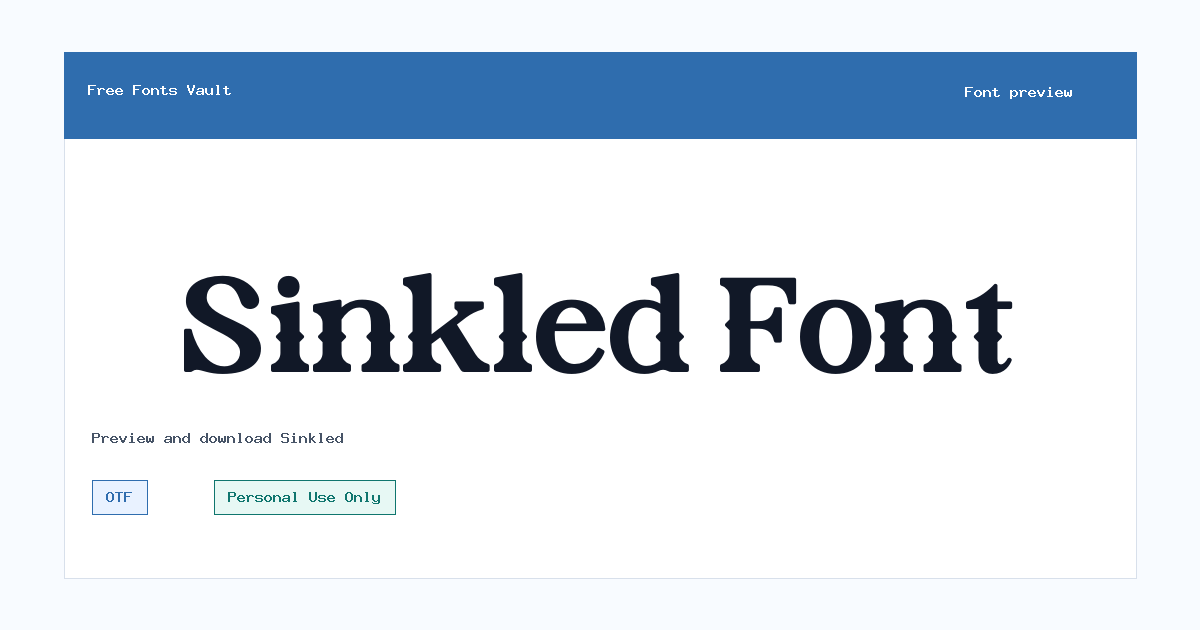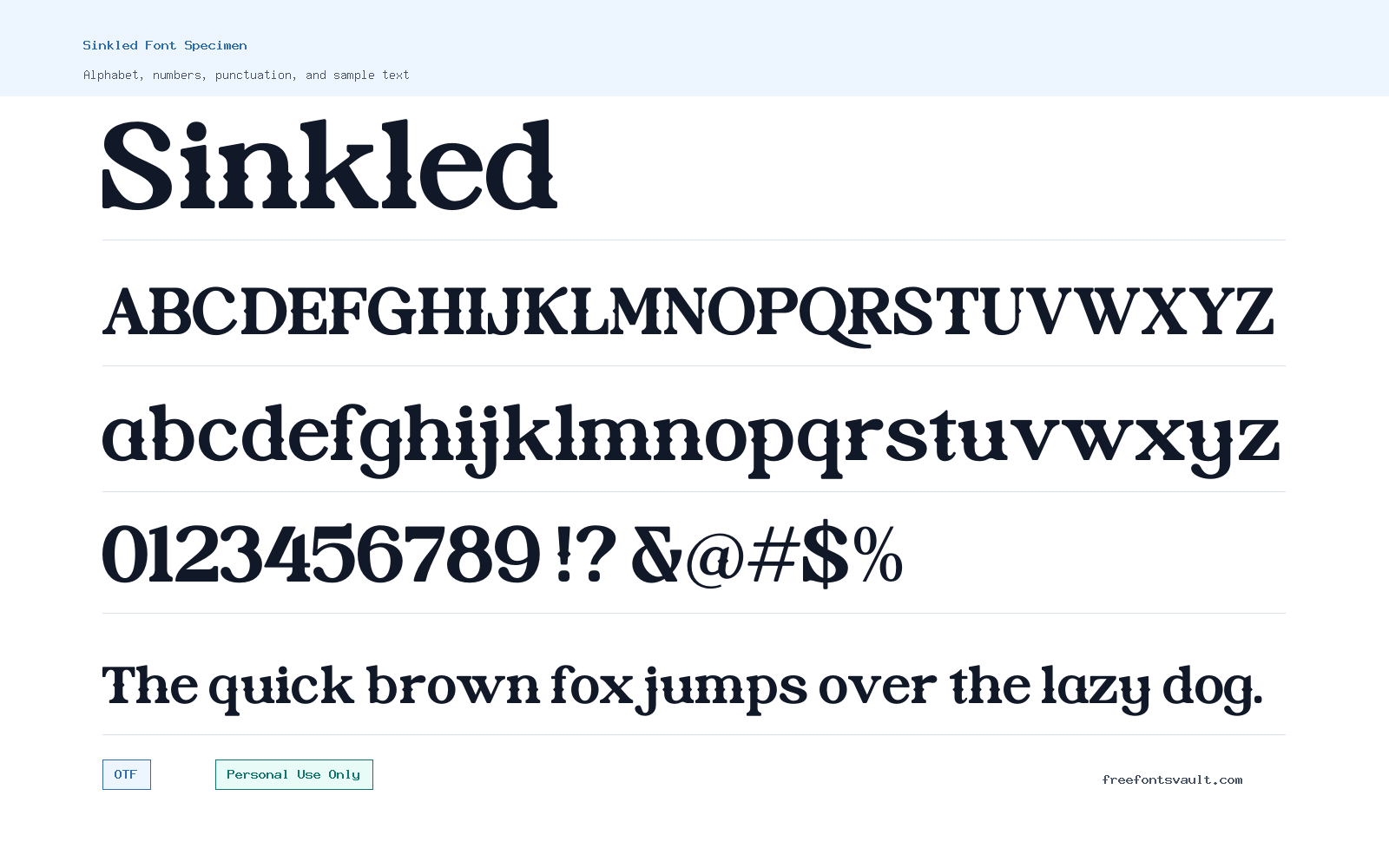
Sinkled
- Designer Shiddiq Roihan
- Foundry Amorfatype Studios
Sinkled font.
Sinkled is a serif font for visitors who want a clean display option for personal design work. It comes as a regular OTF font file and should be tested in the preview tool before download, especially if you plan to use it for headings, short titles, or decorative text.
About Sinkled
Sinkled is presented as a serif font, which makes it a better fit for text that needs a more classic or editorial tone than a plain sans serif. Because the family information lists a regular style at normal weight, it is best approached as a single-style typeface rather than a large family with bold, italic, or extended weights. That makes it simple to try, but it also means your design choices should be careful: use it where one clear style can do the job without needing many typographic variations.
For practical use, start by typing your real project text into the preview box instead of judging the font from the name alone. Test uppercase words, mixed-case headings, numbers, punctuation, and a few longer lines. Serif fonts can look polished in titles, invitations, quote graphics, personal branding drafts, posters, labels, and social posts, but readability depends on the actual letter spacing and size. If Sinkled feels too detailed in small text, keep it for larger words and pair it with a simple sans serif for descriptions, captions, menus, or body copy. A restrained pairing will help the serif style stand out without making the whole design feel crowded.
- Serif styling suited to short display text, titles, and personal creative layouts.
- Personal posters, invitations, quote images, labels, and social graphics.
- Headings or short brand-style text where a serif look is preferred.
Sinkled is credited to Shiddiq Roihan and Amorfatype Studios.
What is Sinkled best used for?
Sinkled is a good candidate for short personal-use text such as titles, invitations, quote graphics, labels, and poster-style layouts. Test longer text before relying on it for paragraphs.
Who designed Sinkled?
The font is credited to Shiddiq Roihan, with Amorfatype Studios listed as the foundry.